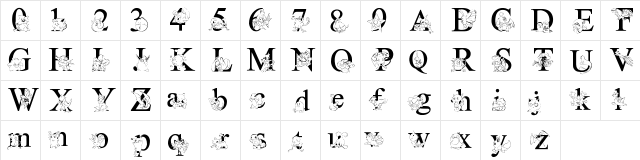
Complete LMS Poke'mon Master Solid Regular glyph index. Displaying only characters natively supported by LMS Poke'mon Master Solid Regular font.
LMS Poke'mon Master Solid is a composed and adaptable typeface that performs quietly and consistently across a wide range of design contexts.